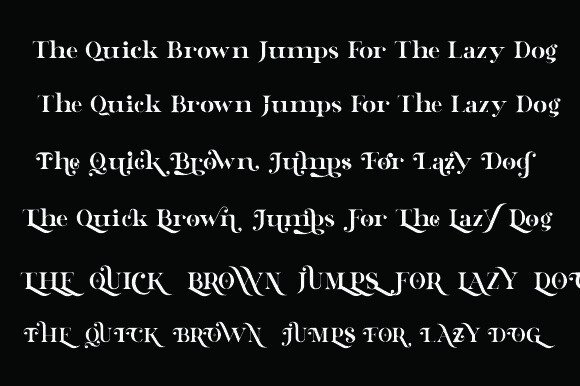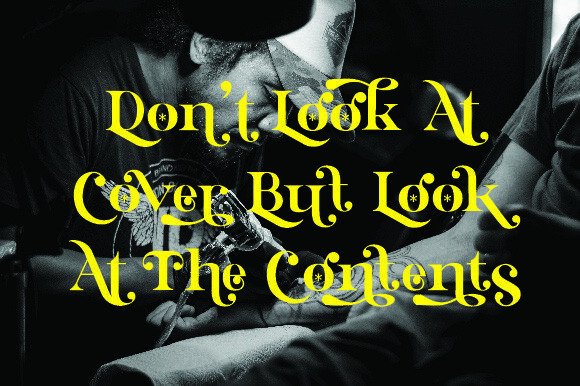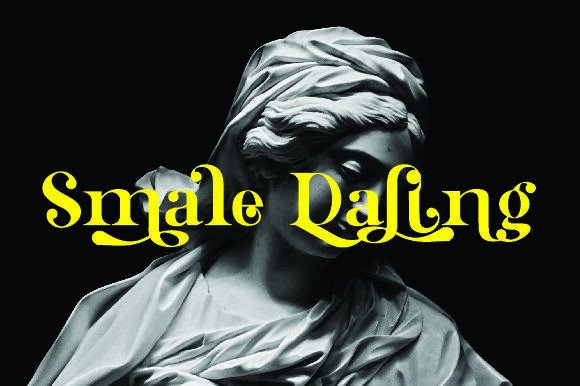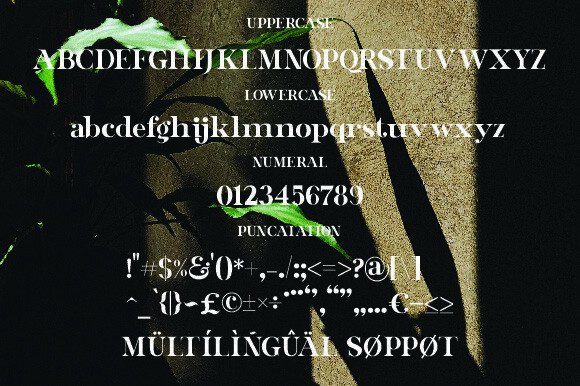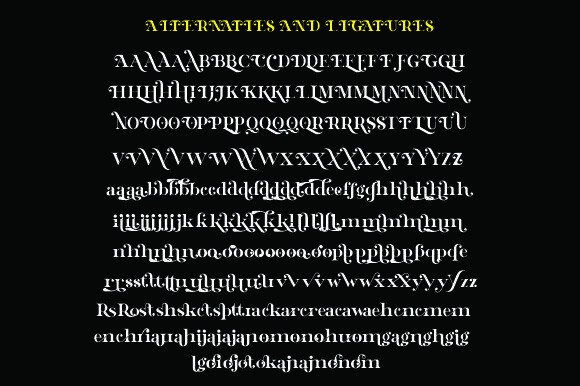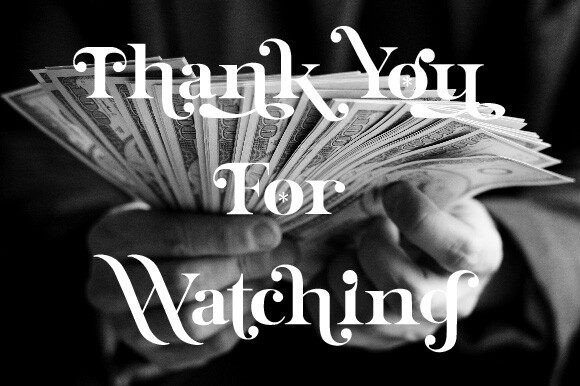
Unleash Your Creativity with Ghost Rider’s Font: A Modern Serif Marvel
In the realm of typography, a new star has emerged, captivating the hearts of designers and crafters alike. Ghost Rider’s Font, a modern serif font, is making waves with its unique blend of alternative patterns and ligatures. This elegant font is not just a tool for creating words or sentences; it’s an instrument for artists to express their creativity and bring their visions to life.
The Features that Make Ghost Rider Stand Out
Ghost Rider’s Font is designed with the creative professional in mind. Here are some of its standout features:
- Alternative Patterns and Ligatures: One of the most striking features of Ghost Rider’s Font is its extensive collection of alternative patterns and ligatures. This means that for many letters, you have multiple choices, allowing you to customize your text to fit your project’s aesthetic perfectly.
- Elegance and Versatility: Whether you’re working on a poster, a screen printing project for clothes, designing invitations, or any other creative endeavor, Ghost Rider’s Font brings an air of elegance and sophistication. Its versatility makes it suitable for a wide range of applications.
Applications of Ghost Rider’s Font
The possibilities are endless with Ghost Rider’s Font. Here are some popular applications where this font truly shines:
- Poster Design: Create eye-catching posters for events, advertisements, or informational purposes. The modern serif look of Ghost Rider adds a touch of class and professionalism to any poster.
- Screen Printing on Clothes: For designers who specialize in apparel, Ghost Rider’s Font offers a unique way to add personality and style to clothing. T-shirts, hoodies, or any fabric can be turned into a canvas for your creative expression.
- Invitations and Stationery: For those who appreciate the finer details, Ghost Rider’s Font can elevate your invitations, greeting cards, and stationery. Its elegant appearance makes any written communication feel special.
- Digital and Print Media: Beyond physical applications, Ghost Rider’s Font can also enhance your digital content. Use it for website headers, social media graphics, or digital newsletters to stand out in a crowded online space.
Tips for Maximizing Ghost Rider’s Potential
To get the most out of Ghost Rider’s Font, consider the following tips:
- Experiment with Ligatures: Don’t be afraid to try out different ligatures and alternative characters. They can dramatically change the look and feel of your text.
- Mix and Match: Combine Ghost Rider’s Font with other fonts to create contrast and hierarchy in your designs. The serif nature of Ghost Rider pairs well with both modern sans-serifs and classic serifs.
Ghost Rider’s Font is more than just a collection of letters; it’s a tool for creative expression. Its modern serif design, coupled with a rich set of alternative patterns and ligatures, makes it an invaluable asset for designers and crafters. Whether you’re working on a commercial project or a personal passion, Ghost Rider’s Font offers the elegance and versatility you need to bring your vision to life. With its PUA encoding, you have the freedom to explore and experiment without limitations. Dive into the world of Ghost Rider’s Font and discover a new dimension of typographic creativity.